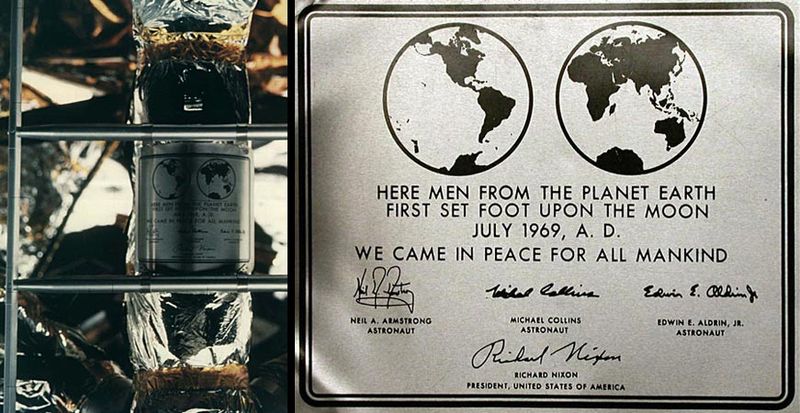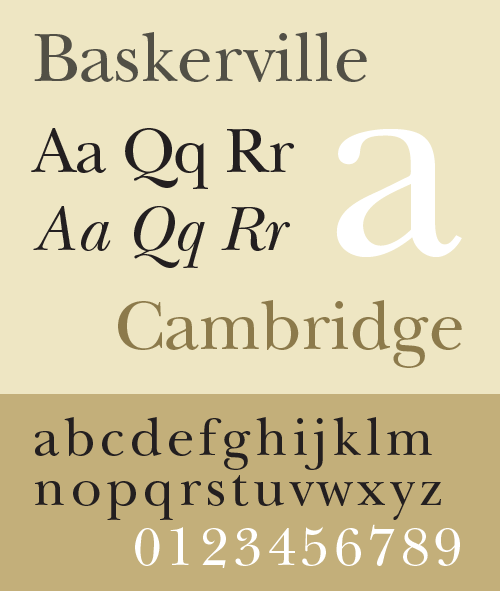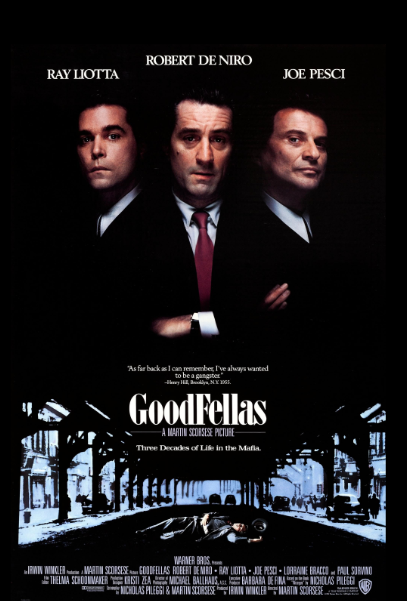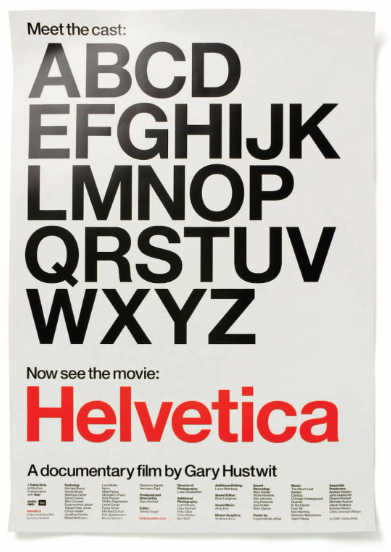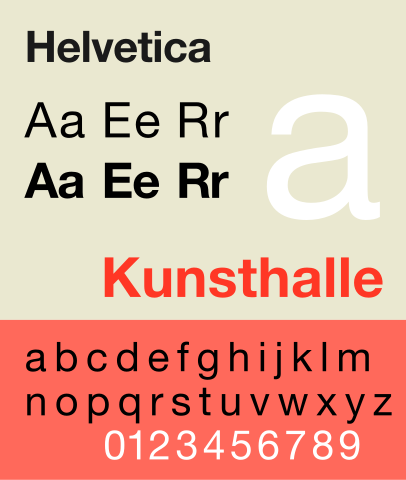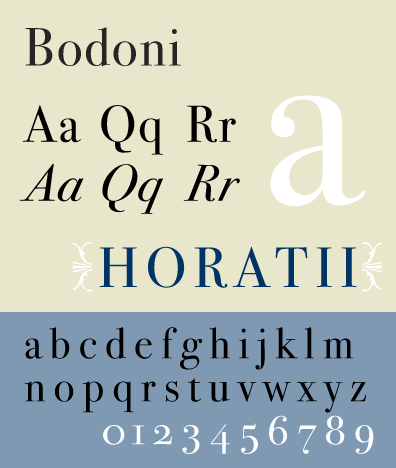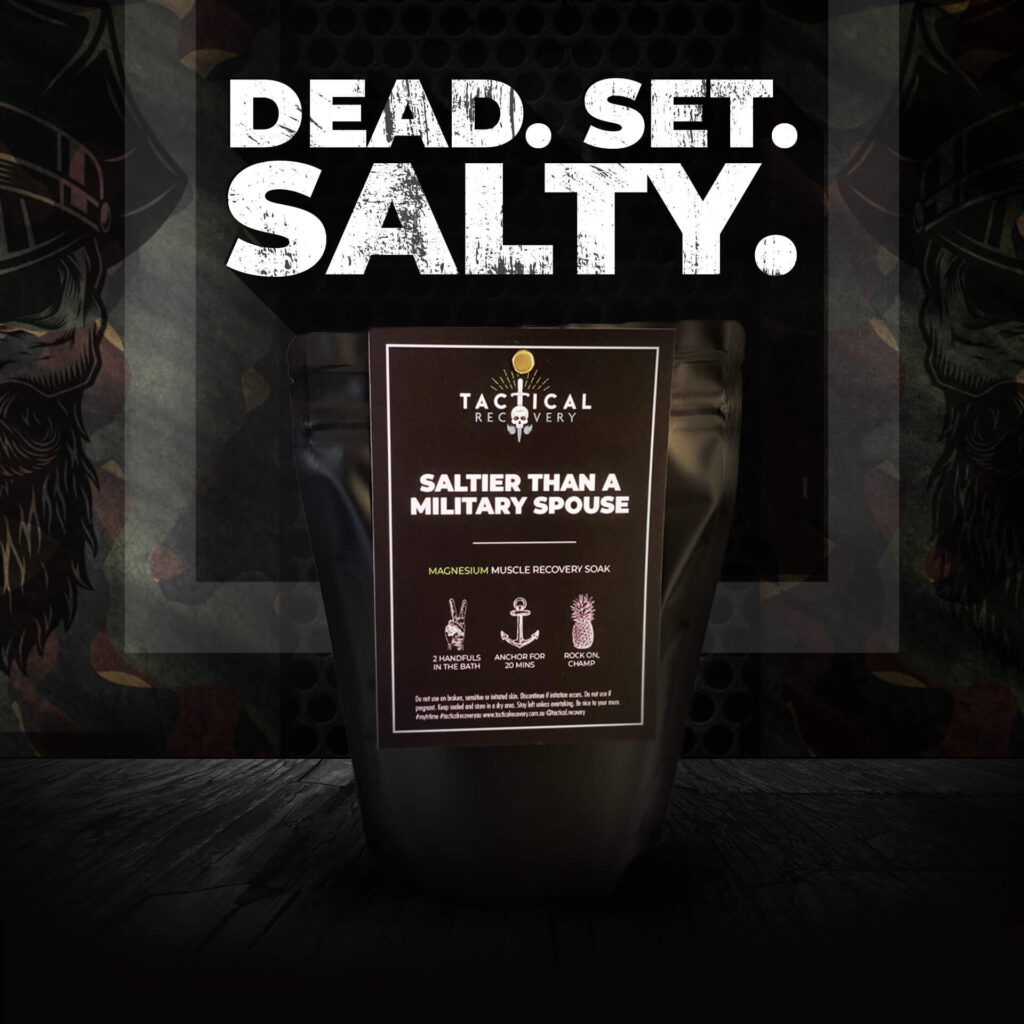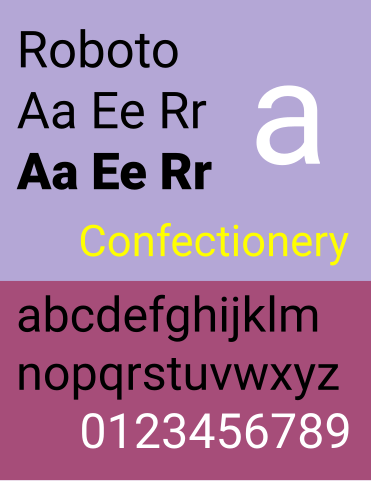
Have you ever wondered why some brands instantly capture your attention while others just go unnoticed? It’s not just colors, images, or catchy wording – it’s also the fonts. They are the secret ingredient for demanding attention and retaining it.
Hence as a marketer or a designer, it’s crucial to know the popular fonts and the contexts they are used in. This knowledge helps you decide which brands and creatives benefit more from a particular font type.
In this blog, we aim to cover some of the most popular fonts, some of the well-recognized ones. As you go through these popular fonts, see how many of them you can recognize.
A project led and supervised by Stanley Morison and created by Victor Lardent
1931
Serif
Its origins trace back to England, where the British newspaper, The Times, commissioned it in response to a critical review by typeface designer Stanley Morison, who highlighted the paper’s poor readability.
Times New Roman is one of the most popular fonts in the world. There isn’t a computer that you wouldn’t find it on and most people would agree it’s one of the most recognizable fonts. For this reason, it’s not the best font for brands to use in exclusive settings. It’s best used for larger portions of text chunks in editorial designs.
Back in the day, however, an album cover art for famous musician and singer, Bob Dylan featured the title in a Times New Roman bold weight with the space tightened.
John Baskerville
1757
Serif, also called a transitional typeface
The intention behind the creation of this font by Baskerville was to have a quality and readable font for publication work. The Baskerville typeface is also a refined version of what is now classified as old-style typefaces in that period. The defining characteristic of thin and thick strokes was influenced by Baskerville’s knowledge of calligraphy which he learned as a young man.
Not only is Baskerville one of the most popular fonts but it’s also one of the oldest on this list. Those who are closely working with graphic design would deem it as one of the most recognizable fonts.
As its intended purpose denotes, it’s best for printed publications because of the crisp serif characteristics. It would also work great for headlines and titles. A prominent use case available is its usage in the Canadian government wordmark logo.
Swiss typeface designer Max Miedinger and Eduard Hoffman
1957
Sans-Serif
Helvetica was originally known as Neue Haas Grotesk. It was founded in the Haas-type foundry to fill the need for a neutral font that would suit signages.
Not only is Helvetica considered one of the most popular fonts in the world, it’s also one of the most recognizable fonts.
Its use cases span across various industries and creative types. Some famous examples include the movie poster for the Helvetica movie, a documentary about the font itself, the American Apparel logo.
Giambattista Bodoni
1798
Serif, also categorized as a modern Serif.
Bodoni followed in the footprints of Baskerville with a similar characteristic and gave rise to a modern serif font.
Bodoni is one of the most popular fonts in the world but a word of caution when using this font in digital settings. There are instances that the font is hard to read causing “dazzle” owing to the thin strokes that become very thin at smaller point sizes.
But the Bodoni font is great for logos and headlines or titles. The Goodfellas movie poster uses this font. Other famous brands like Elizabeth Arden and Zara also use Bodoni in their wordmark logos.
Paul Renner
1927
Geometric sans serif
Futura was created in the Bauer Type Foundry, thus rooted in the Bauhaus design philosophy, emphasizing simplicity and functionality. Futura was created with clean, geometric shapes that reflect modernism. The font is based on simple circles, triangles, and squares, making it a perfect representation of the modern, forward-looking spirit of the early 20th century.
First released by the Bauer Type Foundry, Futura widely became one of the popular fonts in advertising, logos, and even space exploration – most famously, it was used on the plaque left on the moon by the Apollo 11 astronauts. This would render it one of the longest-enduring popular fonts in the world.
The font is also used in some of the leading clothing brands like Supreme and Nike making it one of the most highly recognizable fonts in clothing brand logos.
Claude Garamond
Roughly in 1530
Old Style Serif
It’s considered one of the oldest and most revered serif typefaces. The designer Garamond’s designs were heavily influenced by the Renaissance ideals of balance and elegance.
Garamond fonts are popular fonts that are used in various settings. The original typeface was used in books published by renowned Parisian printer Robert Estienne. In modern times, you can see the font used by Abercrombie & Fitch. The Rolex logo font is also said to be based on the Garamond font.
Understanding these popular fonts and using them in the right context is essential for any marketer or designer. Each font sets a tone, evokes specific emotions, and contributes to your brand’s overall identity.
We hope this blog on popular fonts also helped you see how to choose fonts more strategically.
After all, the right font can make a significant difference in how your audience perceives your message. So next time you’re picking a font, remember: it’s not just about what looks good, but what communicates best.